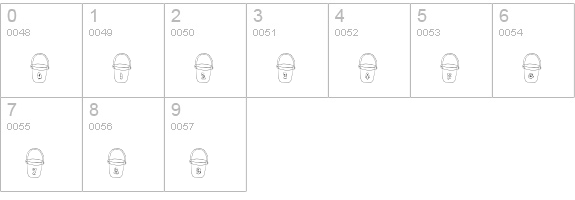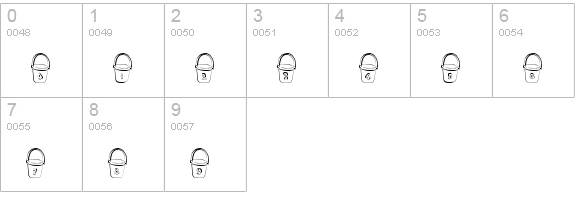
Sacred Cow Font Details
Sacred Cow font is a stunning display typeface that effortlessly combines elegance and boldness. Its unique design exudes a sense of power and prestige, making it the perfect choice for any design project that requires a touch of sophistication. Crafted with utmost care and precision, Sacred Cow font features intricate details and smooth curves that elevate any text it adorns. Its graceful letterforms are bound to captivate and leave a lasting impression on viewers. What sets Sacred Cow font apart from other fonts is not only its exceptional visual appeal but also its accessibility. It is freely available to download at FontsMarket.com, making it a valuable asset for both personal and commercial use. Whether you're creating a logo, designing a website, or working on a branding project, Sacred Cow font will effortlessly elevate your work to new heights. This versatile typeface offers a wide range of uppercase and lowercase letters, numbers, and punctuation marks, ensuring that you have all the characters you need to bring your vision to life. Its flexibility allows it to seamlessly fit into various design styles, from modern and sleek to vintage and timeless. With Sacred Cow font, you can effortlessly convey a sense of sophistication and professionalism in your designs. Its timeless appeal and unique character make it a true gem in the world of typography. So why wait? Download Sacred Cow font for free at FontsMarket.com and unlock a world of endless design possibilities.